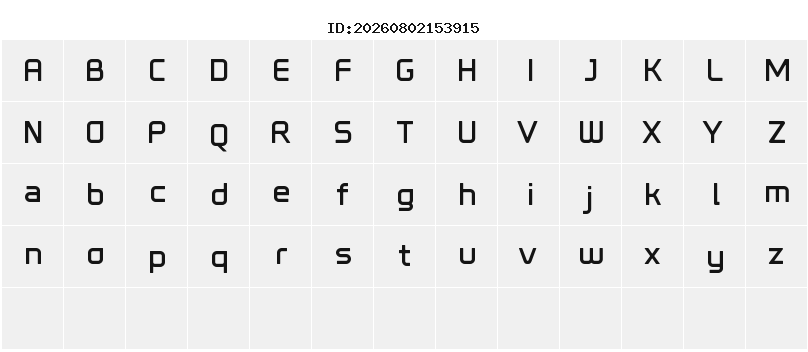
nemode demo Preview
• Font Name: nemode demo
• Designer: Darim Kim
About nemode demo.ttf
nemode demo.ttf is a modern, elegant sans-serif font designed for ultimate readability and visual harmony. Perfect for branding, headlines, web design, and print materials.